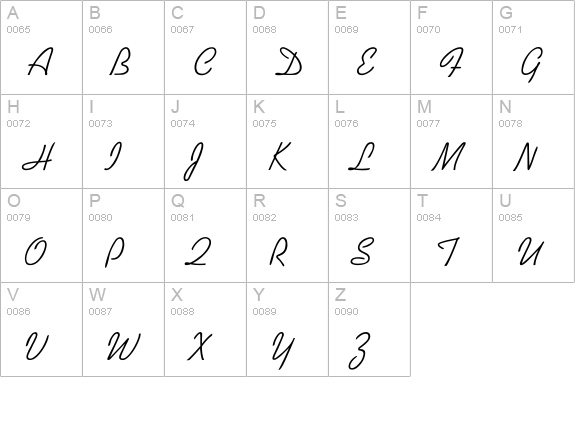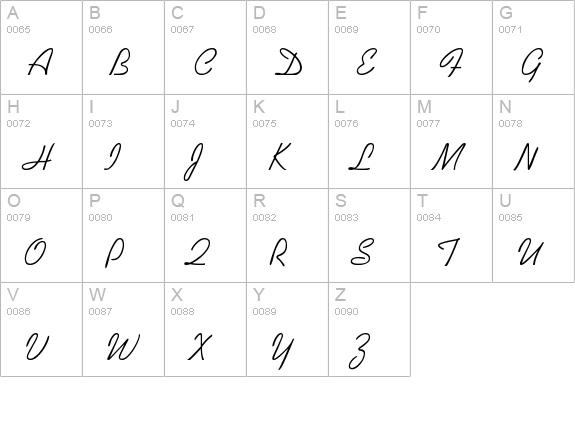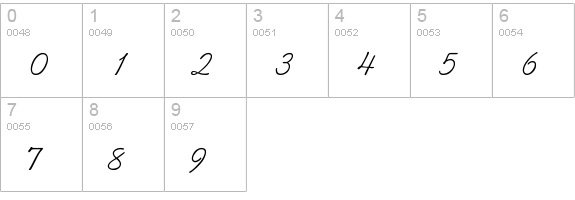
Kaufmann-Normal is the standard, neutral variant in the Kaufmann typeface family \xE2\x80\x94 well suited to general body text, paragraphs, and standard typographic work.
Introducing Kaufmann-Normal, a stunning and versatile font that effortlessly combines elegance with a touch of modernity. With its clean, flowing lines and carefully designed letterforms, this typeface exudes a sense of sophistication that is perfect for any creative project. Kaufmann-Normal offers a wide range of characters, including uppercase and lowercase letters, numerals, punctuation marks, and special symbols. Its balanced letter spacing and smooth curves make it highly legible and suitable for both large headlines and small body text. One of the most appealing aspects of Kaufmann-Normal is that it is freely available to download at FontsMarket.com. This means that designers, artists, and anyone in need of a high-quality font can easily access it without any cost. Whether you're creating a professional logo, designing a website, or working on a personal project, this font will elevate your work and add a touch of sophistication. Additionally, Kaufmann-Normal is compatible with various design software and can be used across different platforms, making it a versatile choice for any creative endeavor. Its timeless appeal and seamless integration into any design make it a must-have font for designers of all levels of expertise. Embrace the elegance and versatility of Kaufmann-Normal and let your creativity flourish. Download this exceptional font today from FontsMarket.com and elevate your designs to new heights.